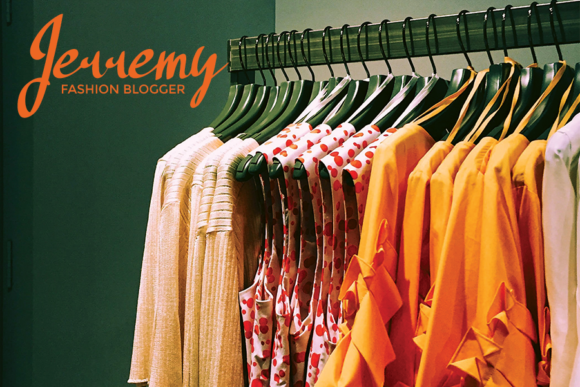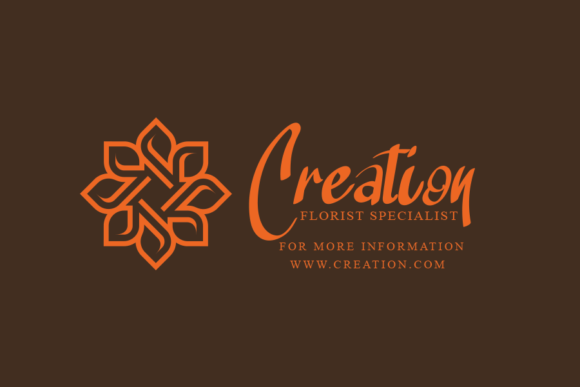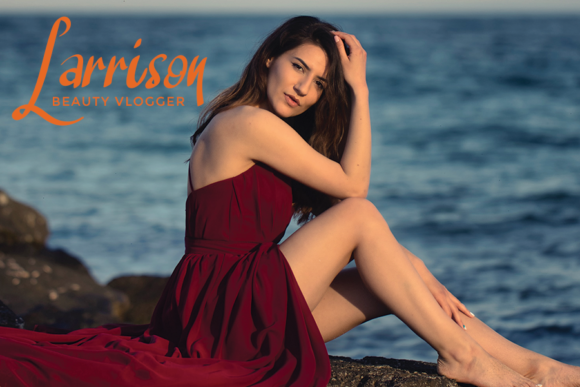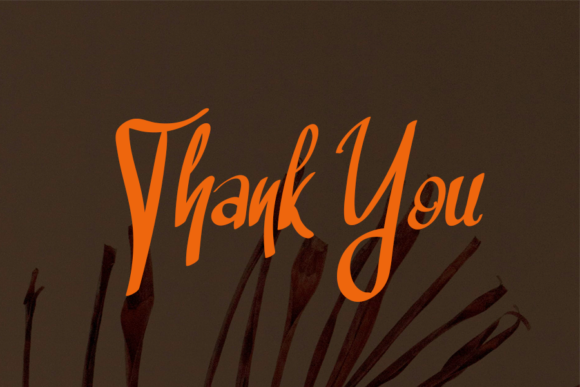
The Victorian Font
About The Victorian Font
The Victorian is a lovely and timeless handwritten font. It is the best choice for creating eye catching logos, branding and quotes. Every letter has a unique and beautiful touch, which will make your design come alive!